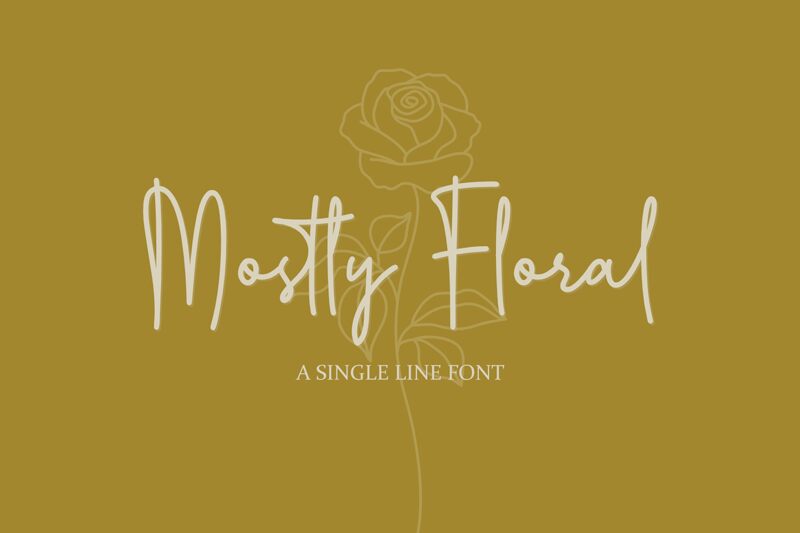
Mostly Floral Regular
Mostly Floral, designed by Niskala Huruf, is a stunning handwritten font that adds a personal touch to any project. With its light weight and semi-condensed width, Mostly Floral is perfect for creating elegant invitations, beautiful wedding stationary or unique social media graphics. The signature touch of this font ensures that your designs stand out from the rest with a charming and distinctive appearance. Whether you're designing branding materials or creating personalized gifts, Mostly Floral will add an extra level of sophistication to any project.